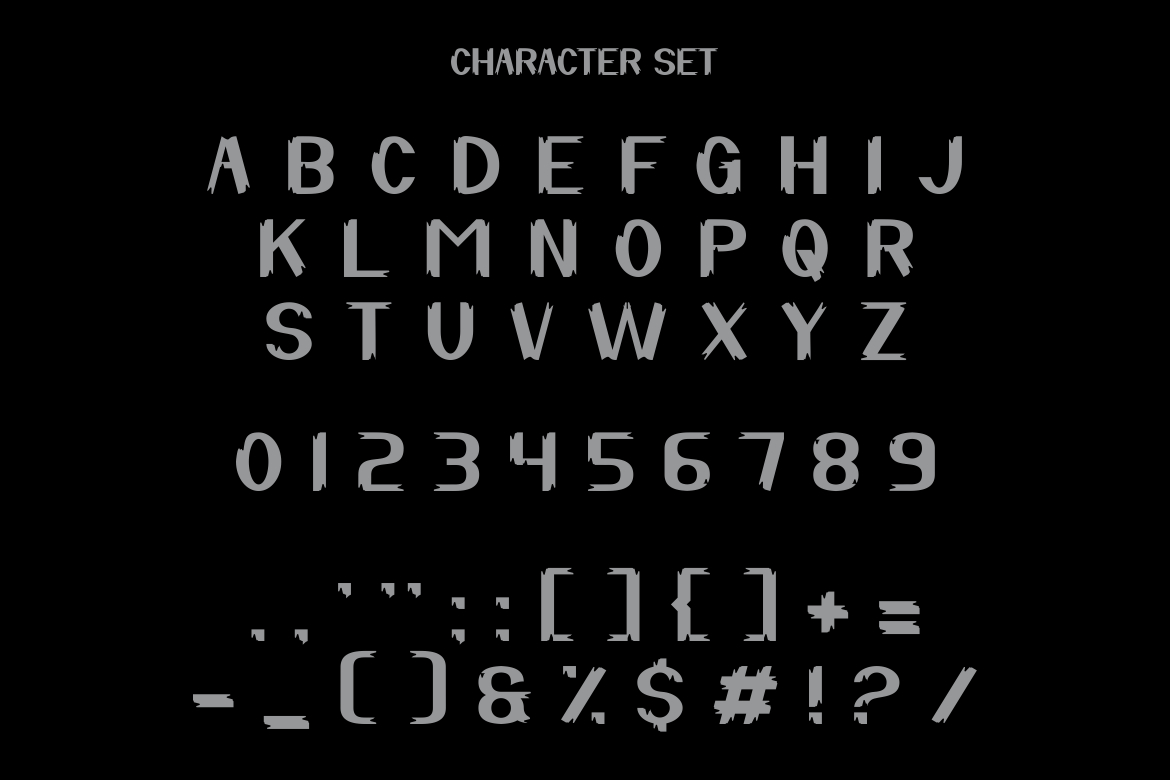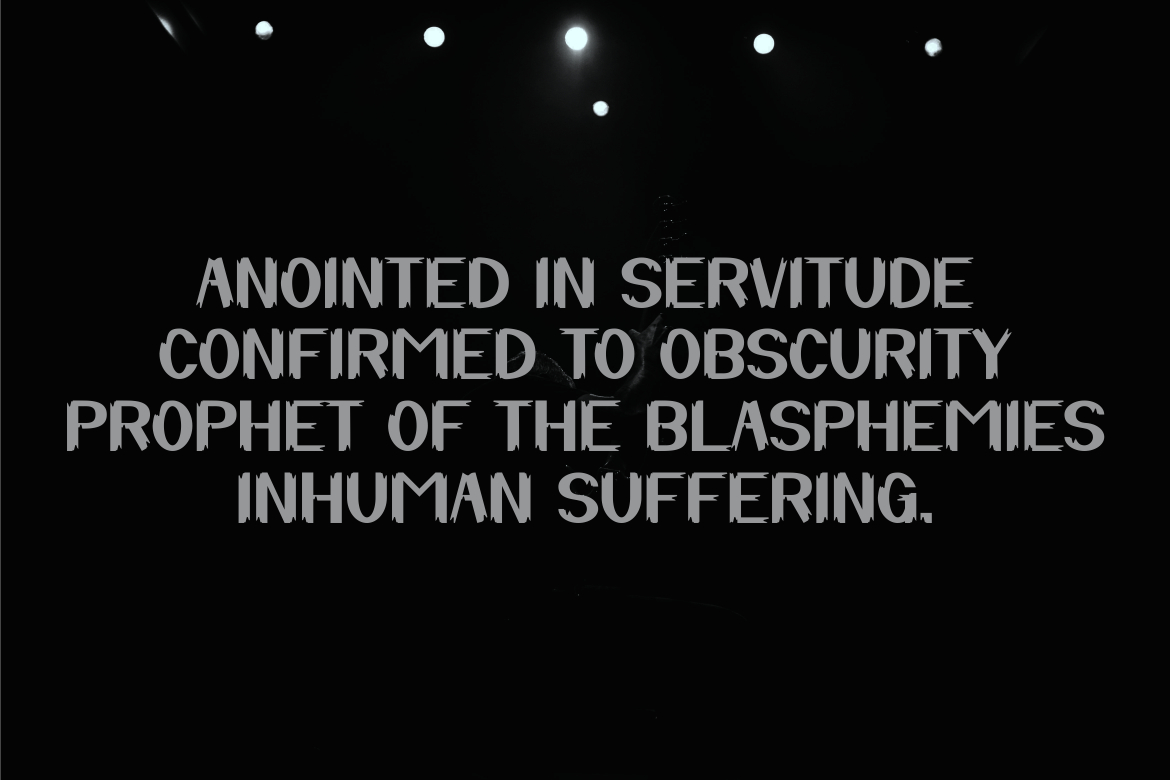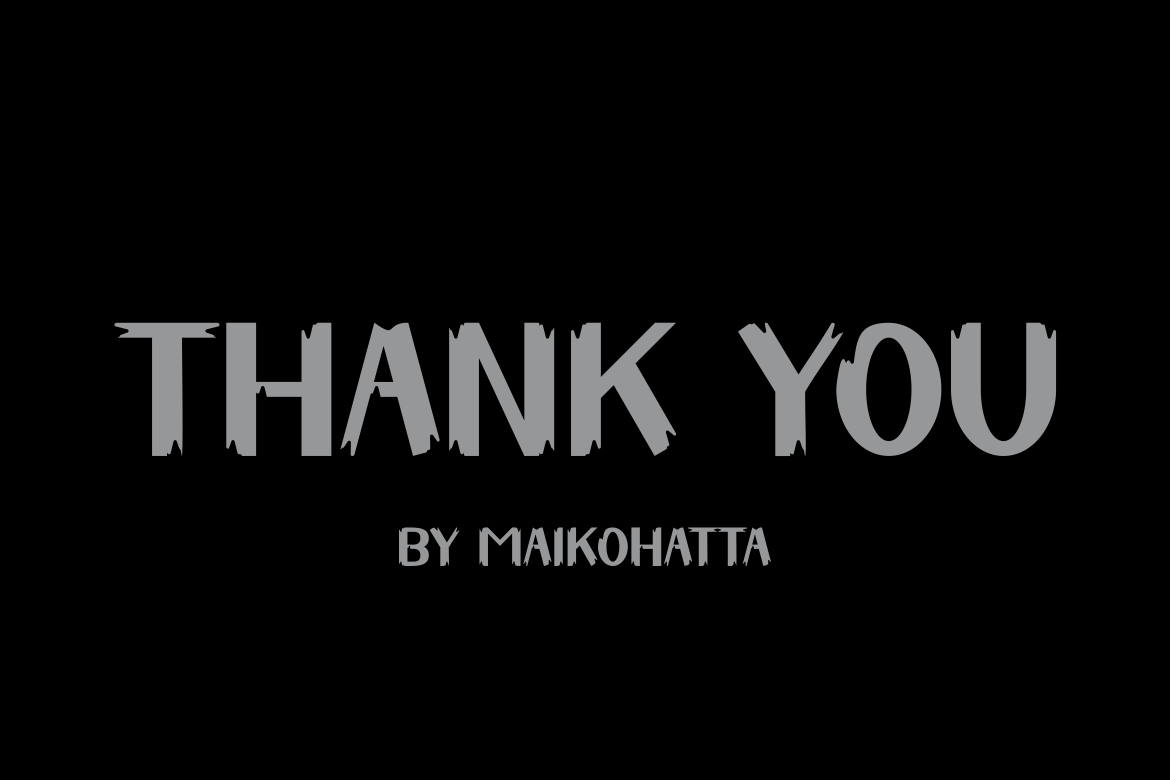
Heroisgod Font
About Heroisgod Font
**HEROISGOD** Modern Blackletter Font
**HEROISGOD** a distinct, highly detailed, and Horror Metal font. It would make a great choice for exquisite retro-urban designs, tattoo business branding, logos, vintage designs, and more.